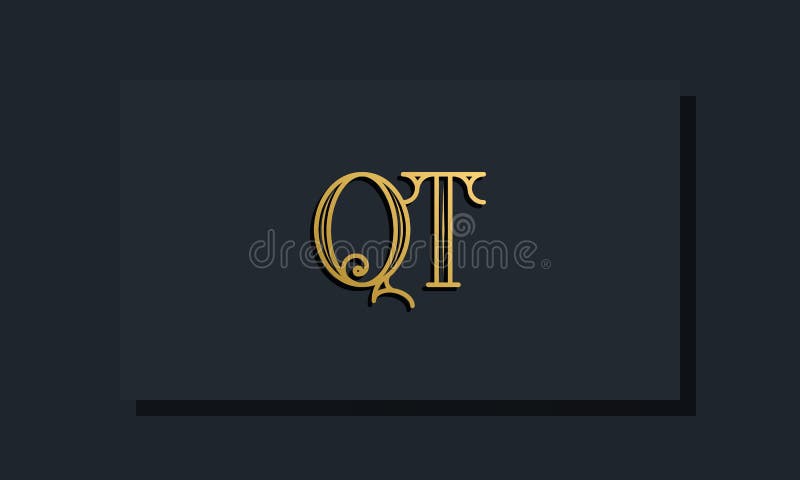
Minimal Inline style Initial QT logo. This logo incorporate with modern typeface in the creative way. It will be suitable for which company or brand name start those initial